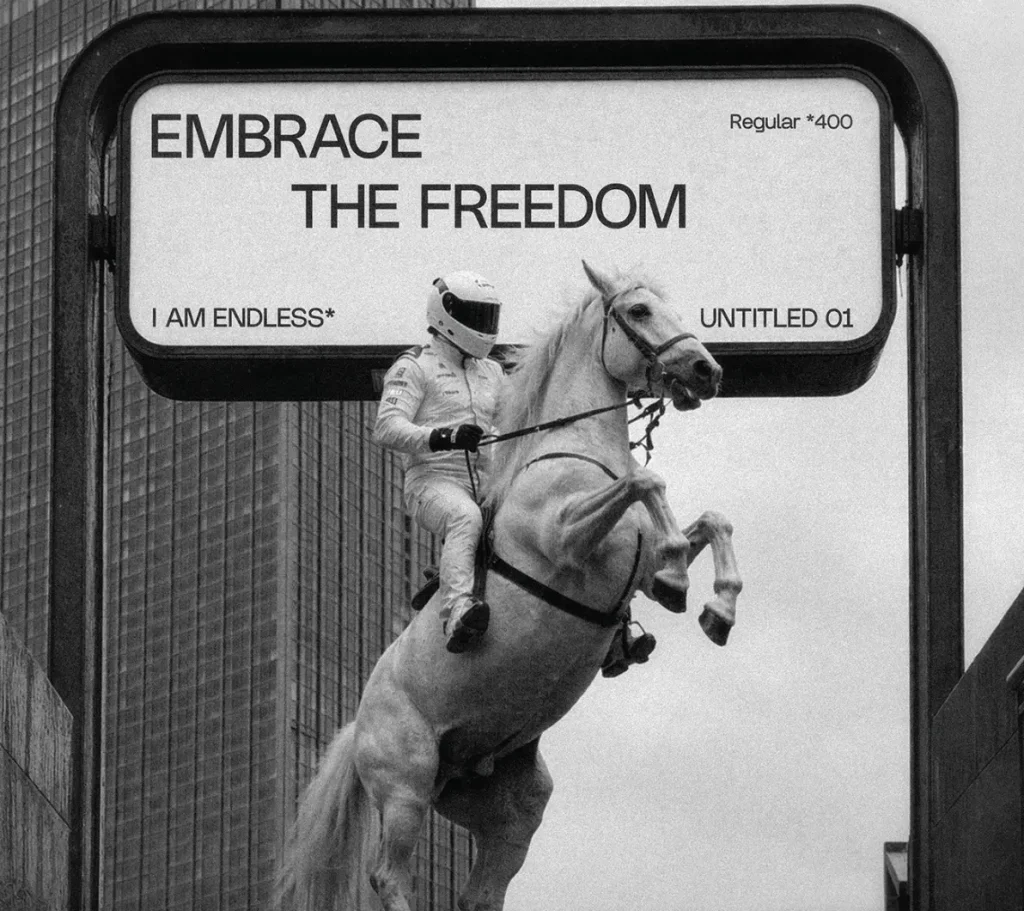
Endless is a free, modern geometric sans serif font designed for versatile, everyday use.
The typeface carries a bold, functional character and works well for headlines, body text, and branding. It is free for personal and commercial work.
- Modern geometric sans serif construction
- Tight kerning for compact, even spacing
- Strong legibility at a range of sizes
- Smooth visual rhythm for balanced reading
- Clean yet bold, distinctive personality